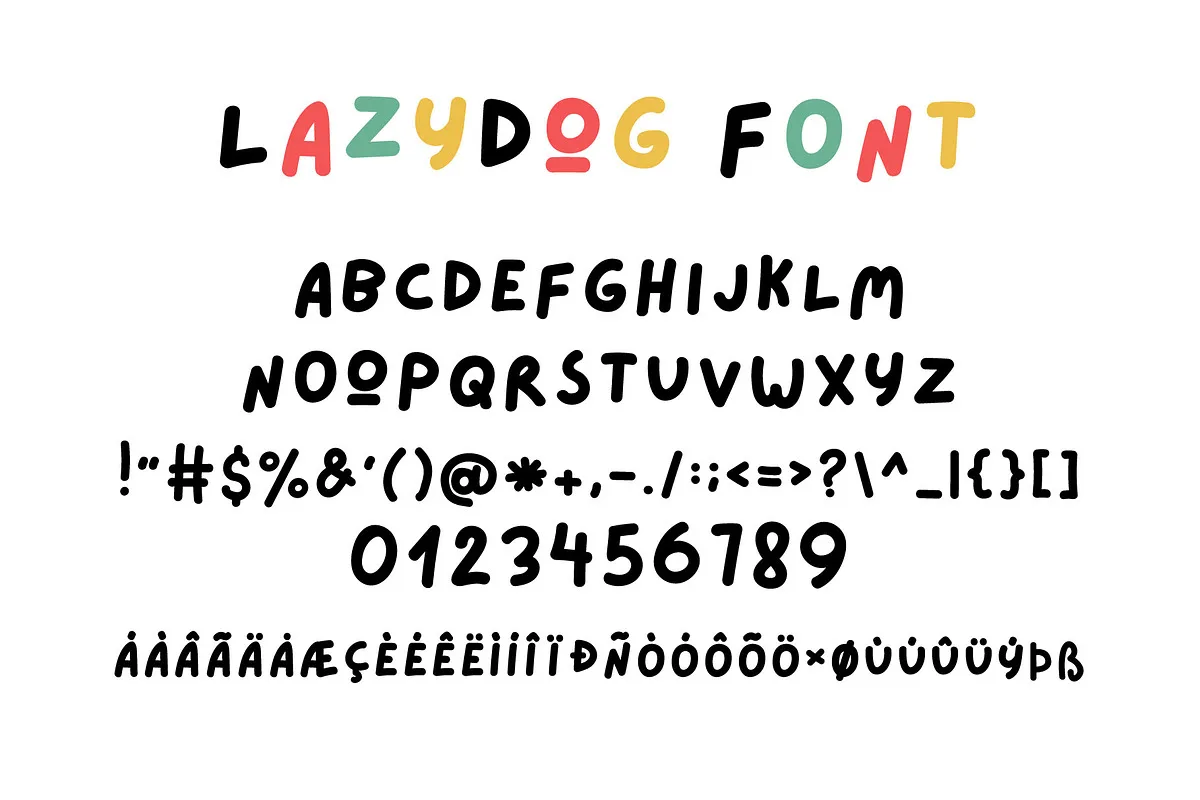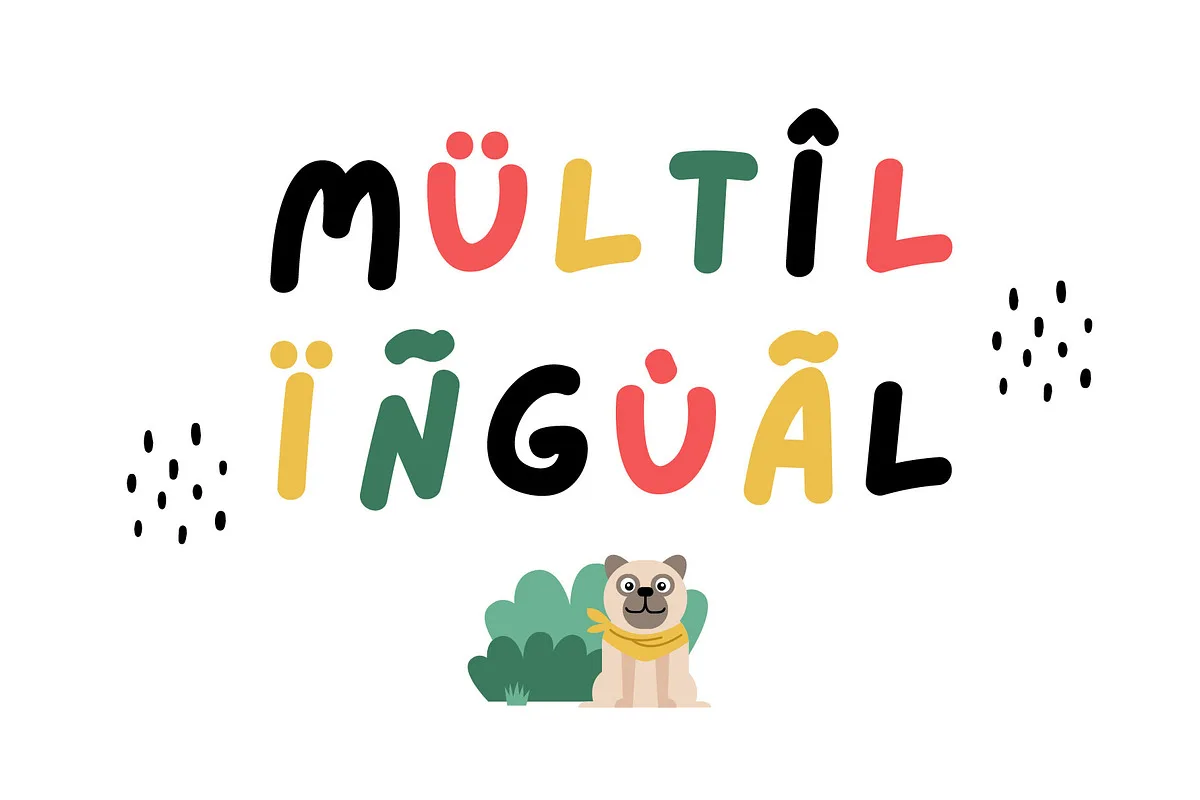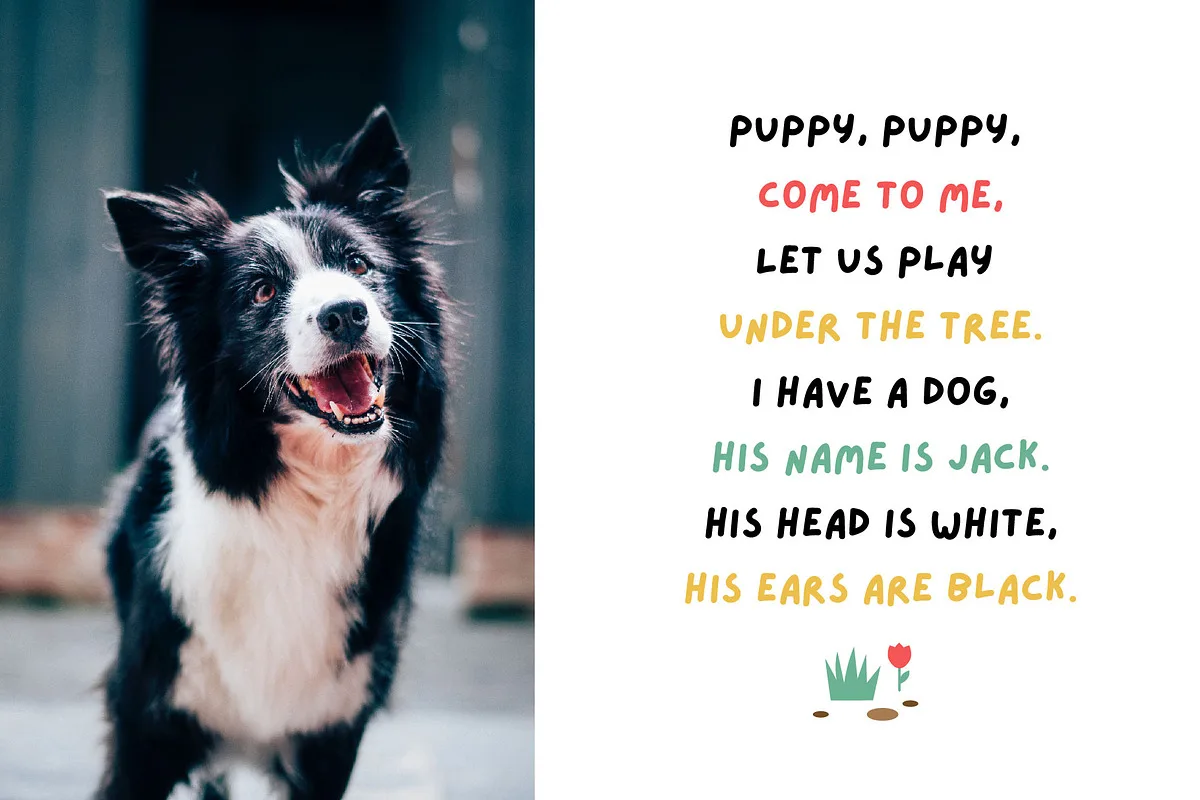
Lazydog is new handwritten kid’s funny font! This is a cute kids’ handwritten font that would be perfect for comics, books, greeting cards, toys, posters, baby clothing, picture books or anything that requires a fun and happy look! The font also includes the Cyrillic alphabet.